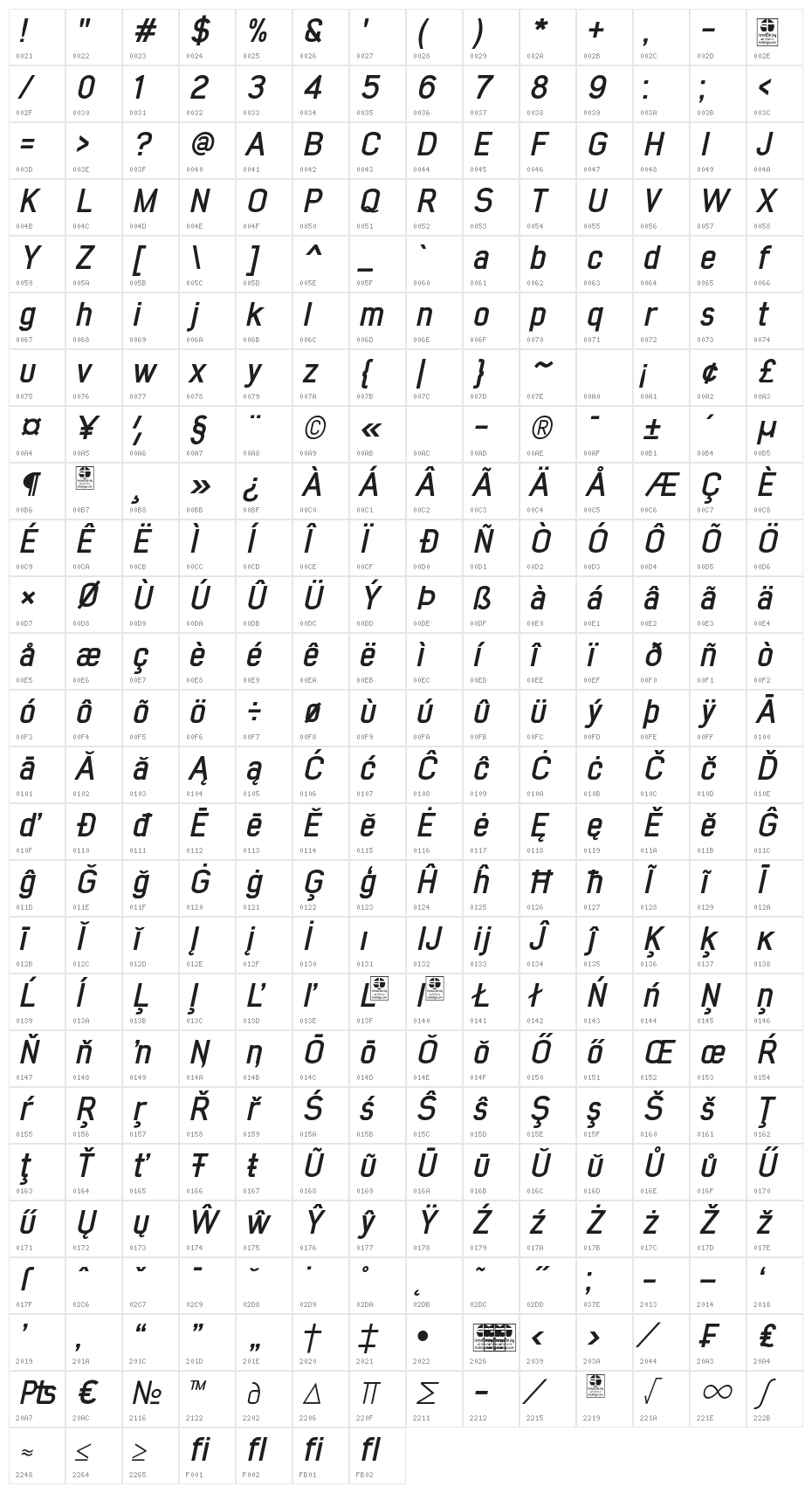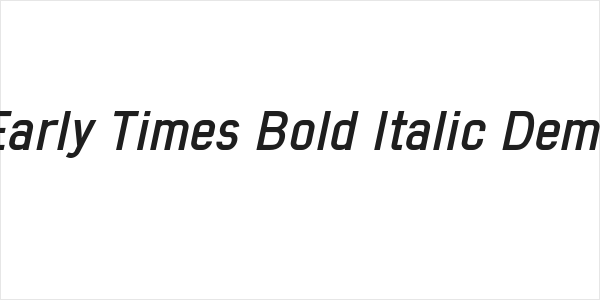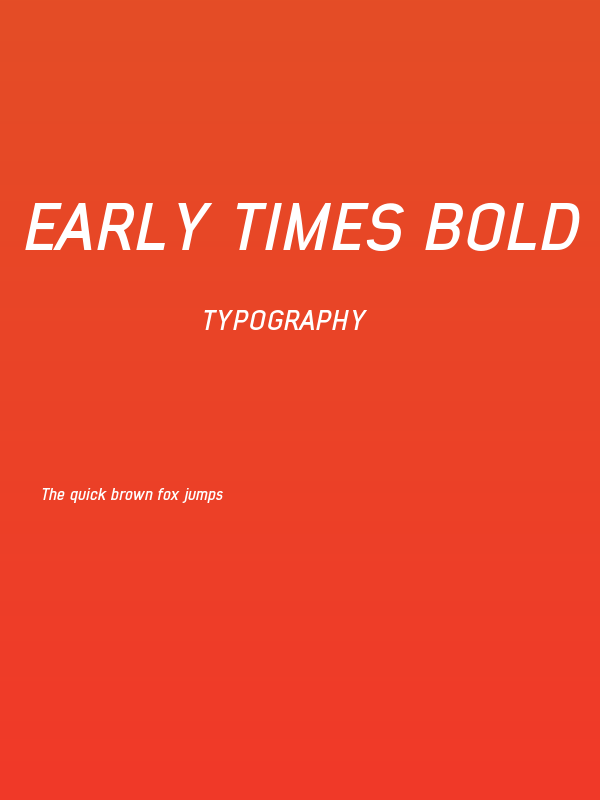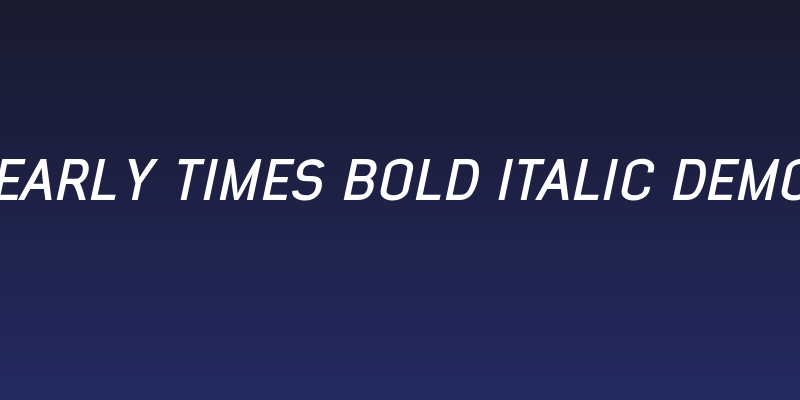
Early Times Bold Italic Demo Font
Early Times Bold Italic Demo Description
This font features a bold and italicized style, combining a modern and dynamic appearance with a slight slant that adds a sense of movement and urgency. The characters are well-defined with a consistent stroke weight, providing a clean and professional look. The uppercase and lowercase letters maintain a uniform height, enhancing readability. The numerals and special characters are designed to match the overall aesthetic, ensuring a cohesive appearance across all text elements. This font's boldness and italicization make it suitable for attention-grabbing headlines and impactful statements.